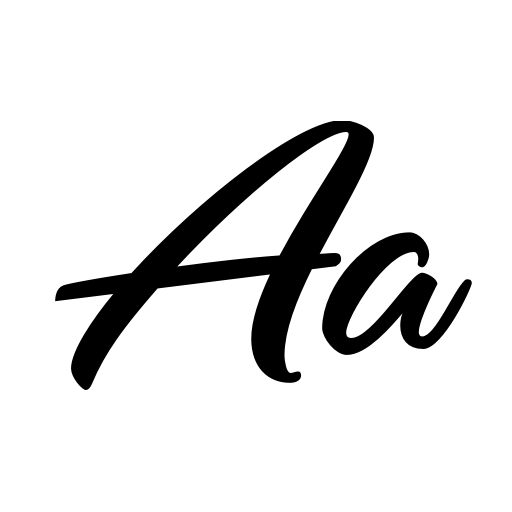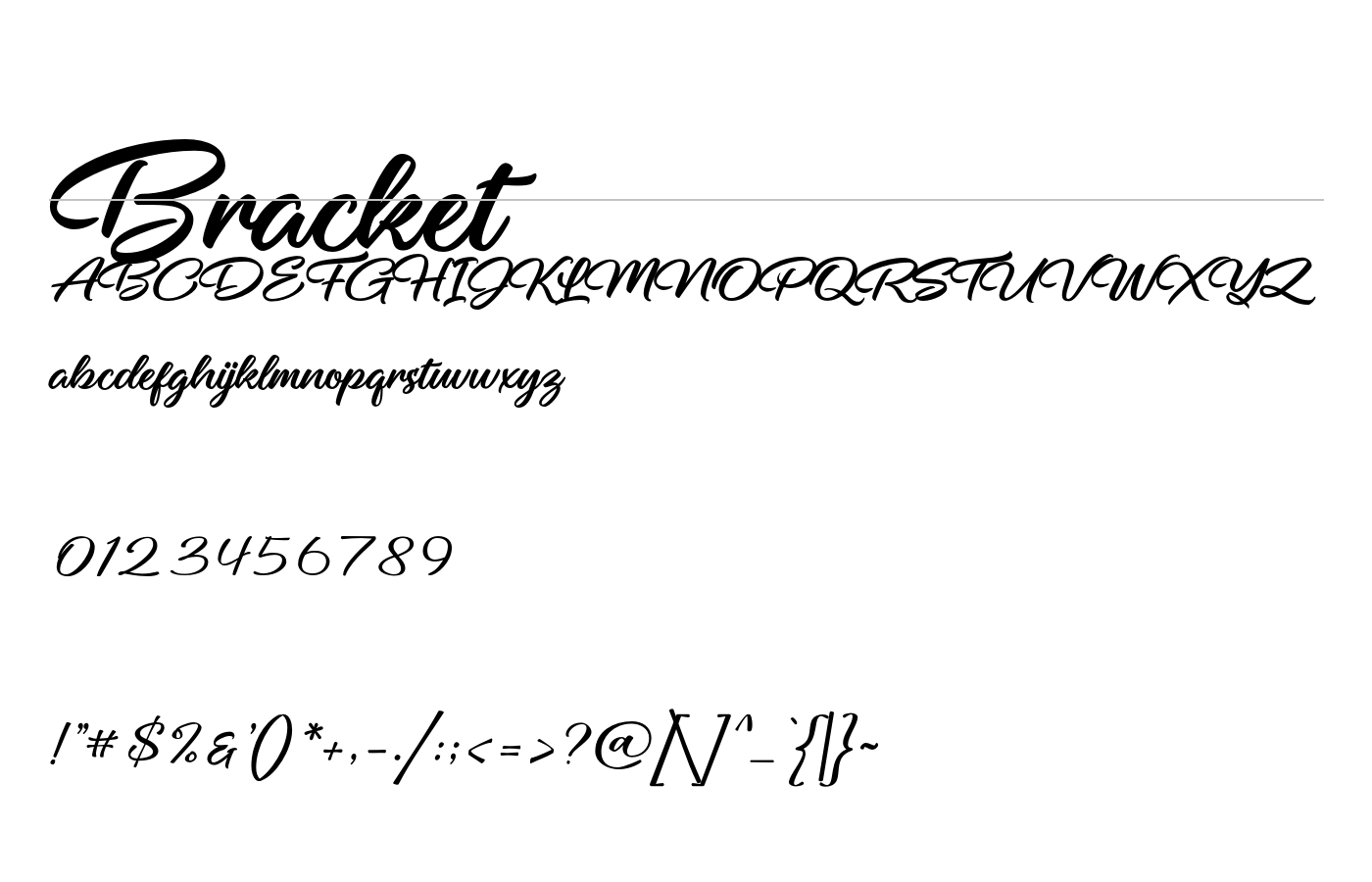
Bracket Font is a stylish, script typeface with smooth, flowing strokes that give it an elegant and modern handwritten feel. It features a medium weight with a natural, slightly condensed width, and its clean, rounded letterforms make it both readable and expressive. Ideal for branding, invitations, and creative projects, this font adds a touch of sophistication and charm.
Bracket Font